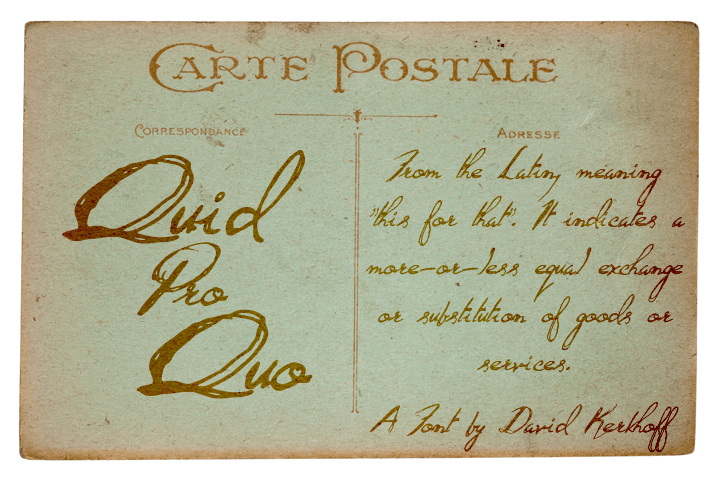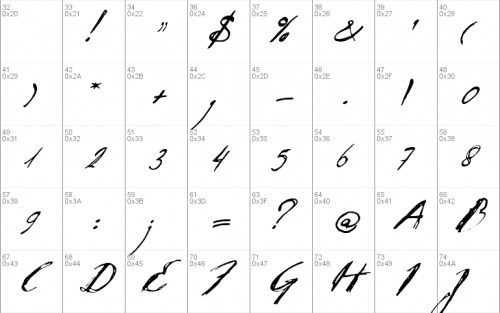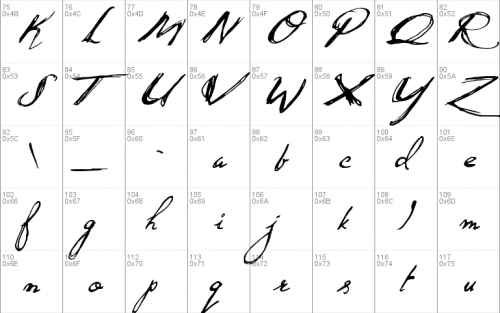
Quid Pro Quo is a fantastic, handwritten font with that ‘old school’ feeling. It is cursive and decorative, straightforward, yet twisted and comes with all the diacritics you’d want (or don’t want)…